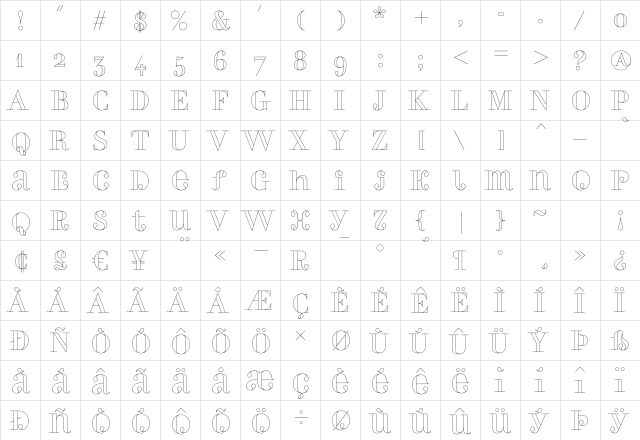
PerlaAlternate Outline Regular
Design Context for PerlaAlternate Outline Typeface
PerlaAlternate Outline brings ornamental detail and strong personality to headlines and identities, where visual impact matters more than quiet functionality.
Font Pairing: Pair with a clean neutral sans-serif for body copy to let PerlaAlternate Outline's character lead without overwhelming the composition.
Pro Tip: Treat PerlaAlternate Outline as the centrepiece of your typographic hierarchy. One strong heading set in a decorative face can carry an entire layout.